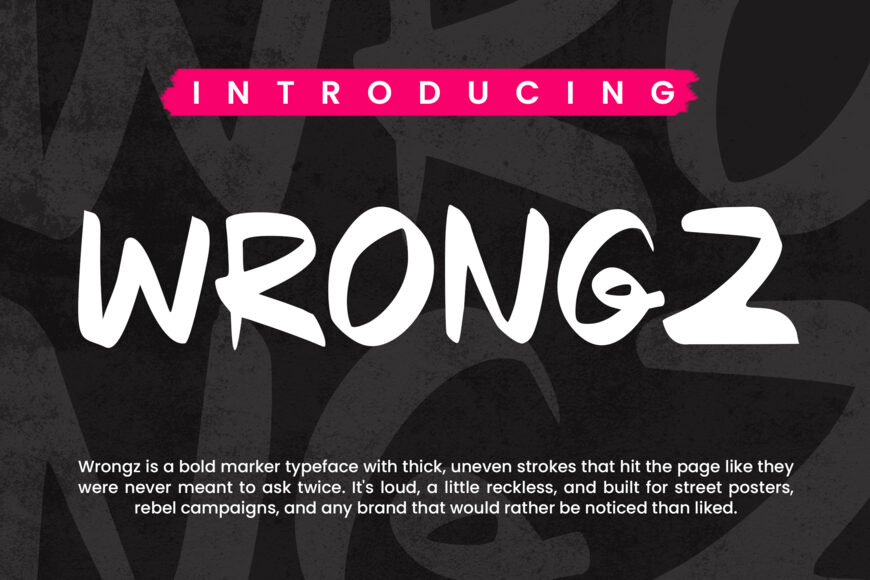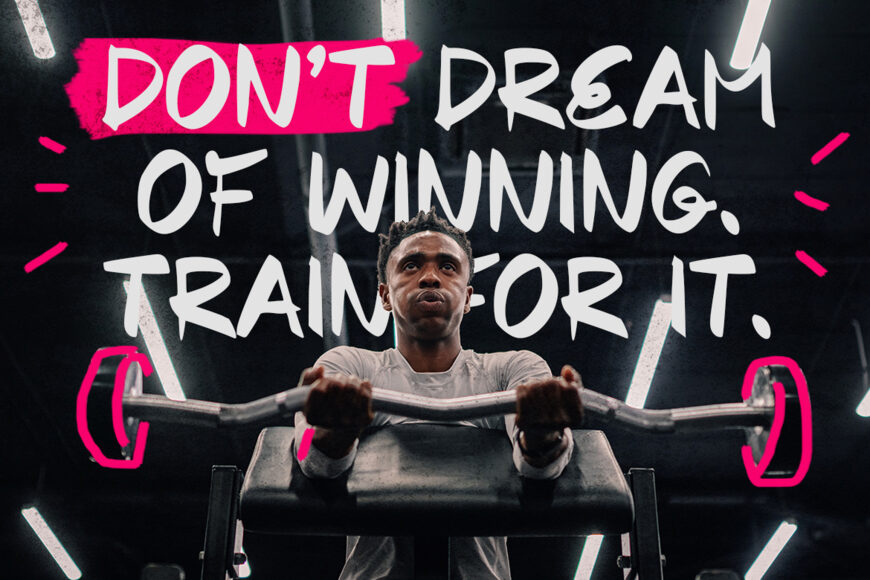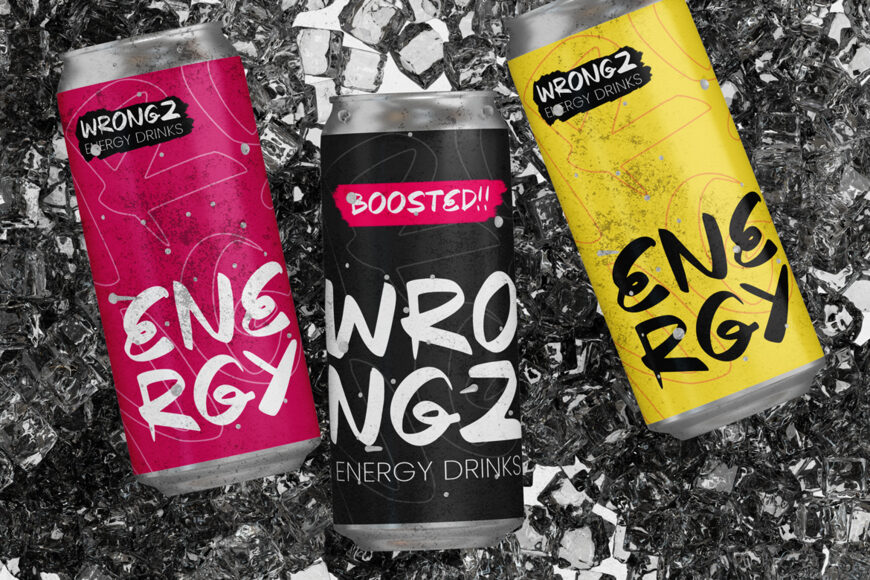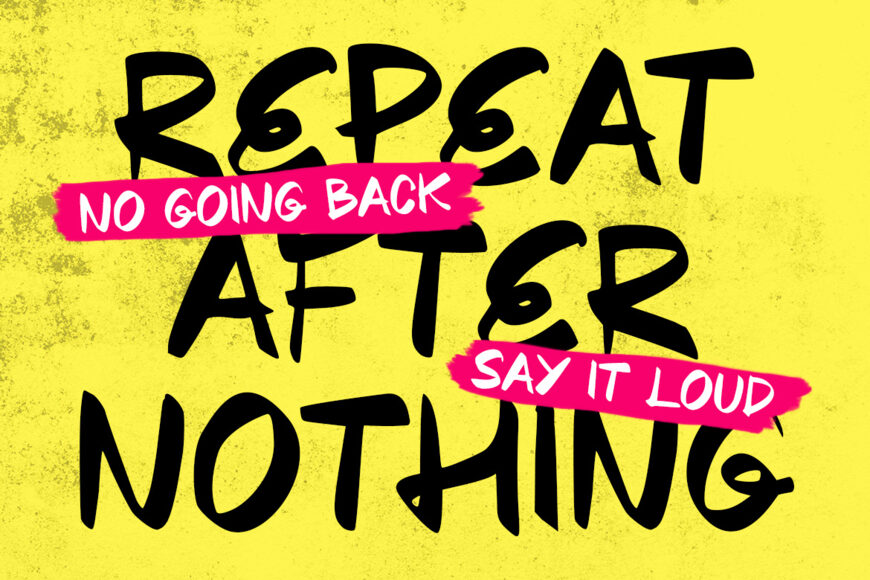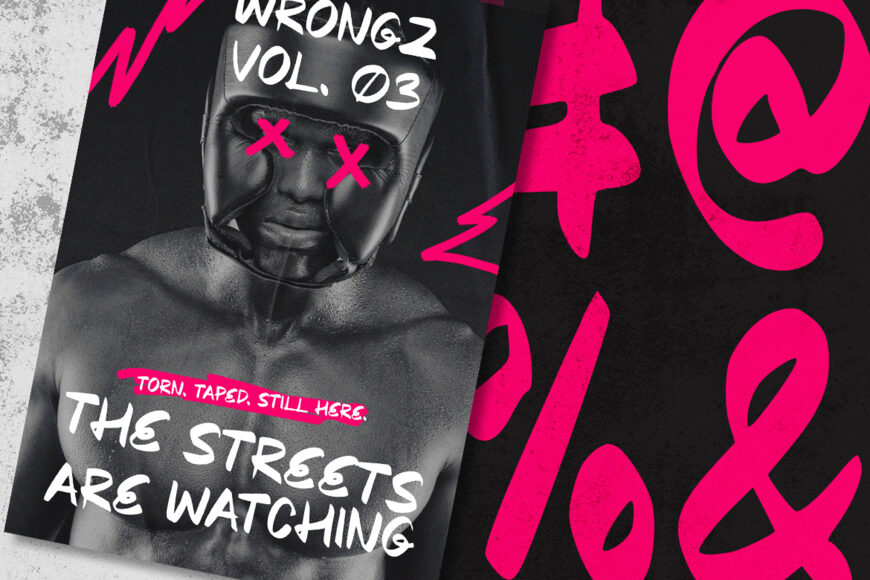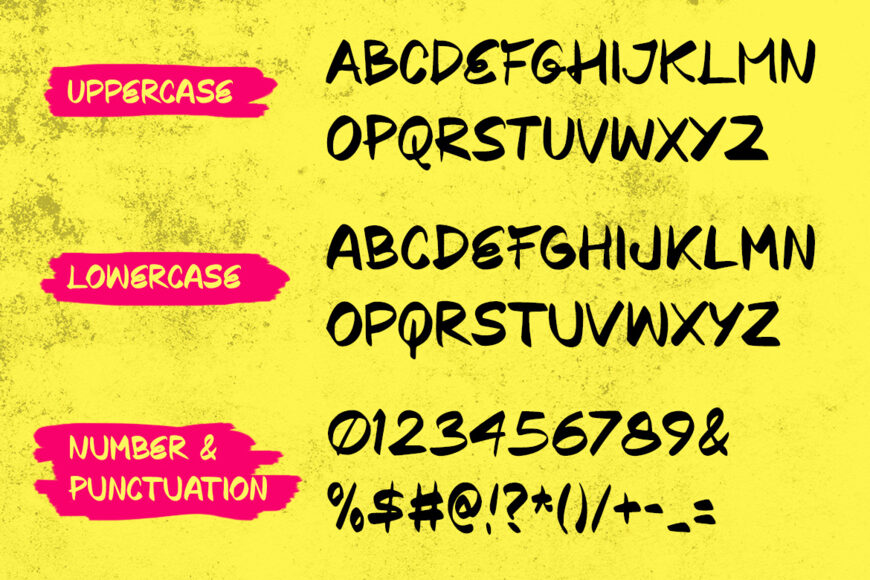
Wrongz brings a raw, rebellious attitude to typography with its rough handwritten strokes, uneven shapes, and expressive marker-like texture.
Right away, it feels bold, fearless, and unapologetic. The irregular letterforms create an authentic DIY aesthetic that feels more human and energetic than polished typography. Because of this, Wrongz is perfect for designs that need a strong voice, edgy attitude, and instant visual impact.